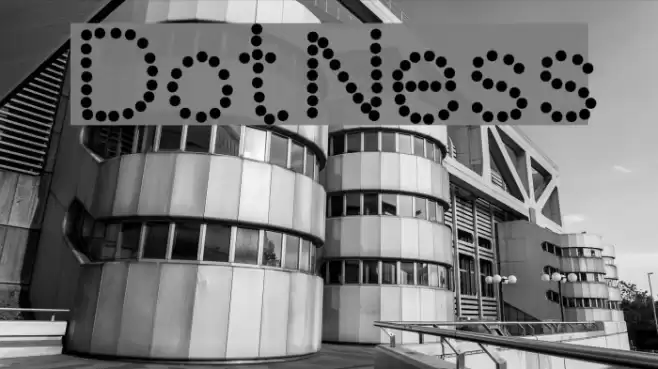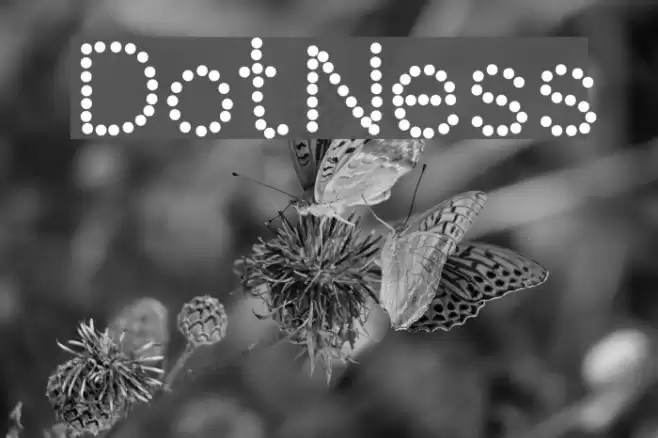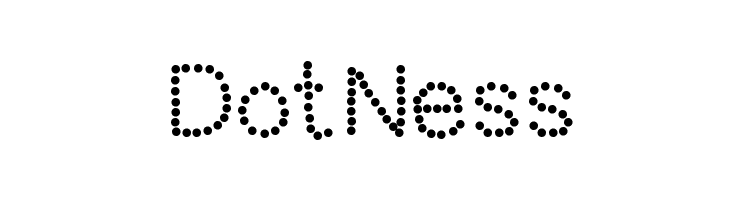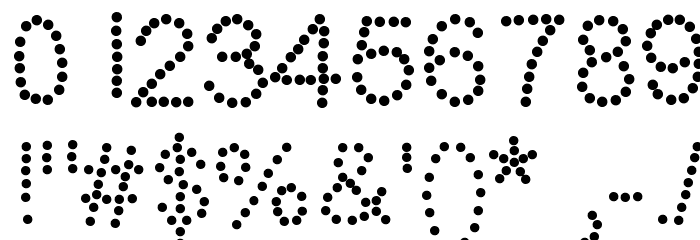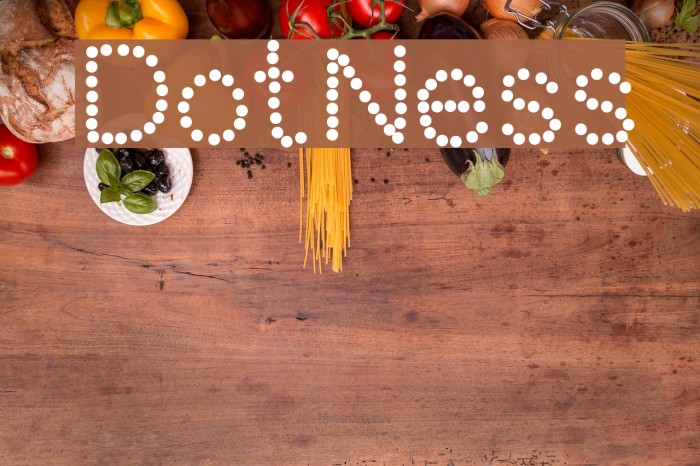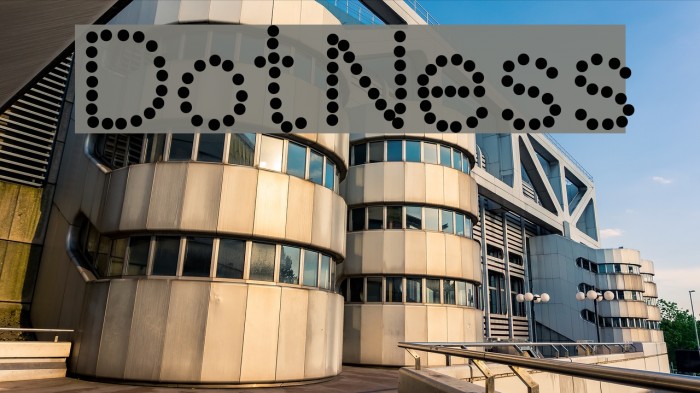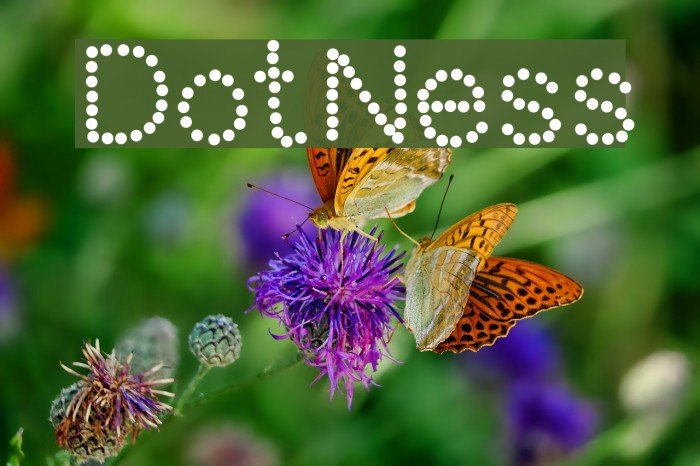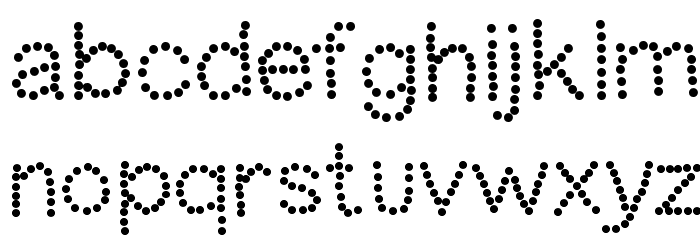
DotNess Font
DotNess Description
This font is a unique and playful design composed entirely of dots forming each character. The letters and numbers are constructed with evenly spaced circular dots, creating a visually striking and modern appearance. The uppercase and lowercase letters maintain a consistent style, with each character clearly distinguishable despite the unconventional design. The font includes a full set of numerals and a variety of special characters, all adhering to the dotted motif. This design is both decorative and functional, offering a creative twist on traditional typography.
A playful, dot-based decorative font with a modern flair from Uncategorized fonts.
- Proposed Projects: Ideal for creative projects such as posters, invitations, logos, and branding materials where a fun and modern aesthetic is desired.